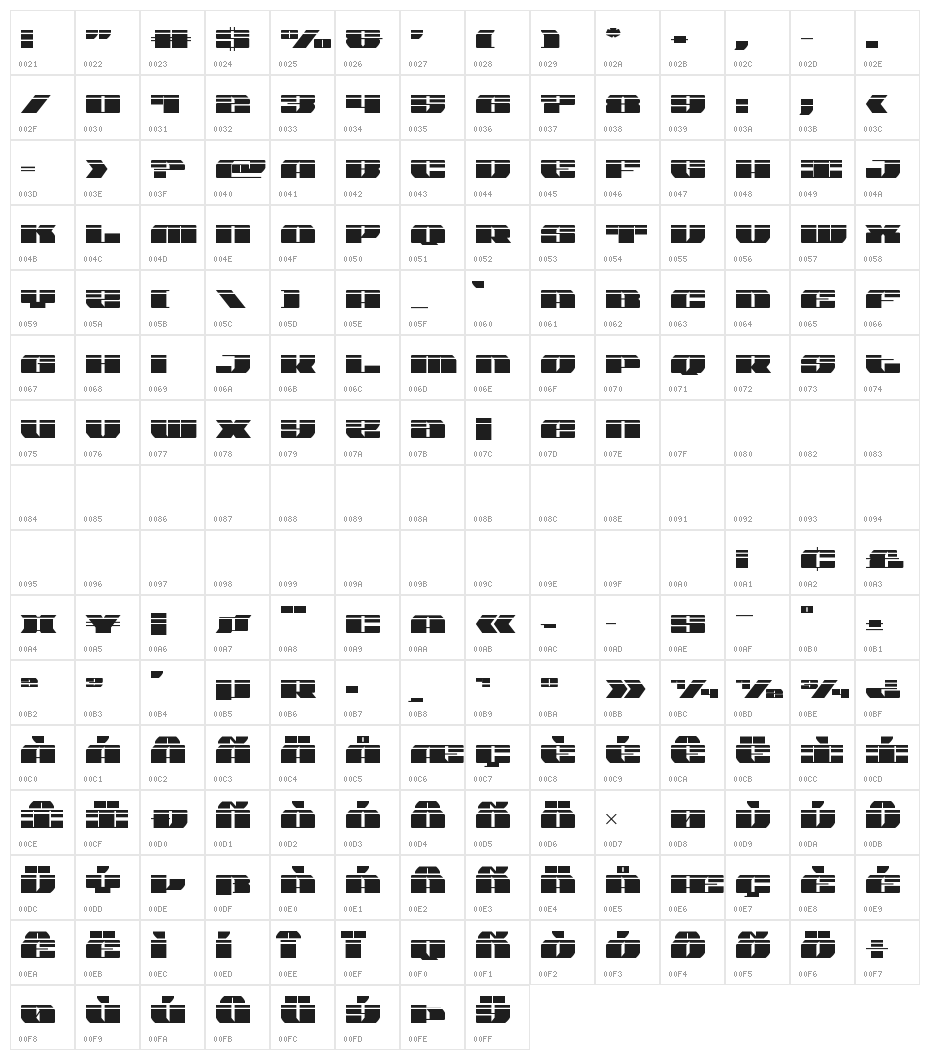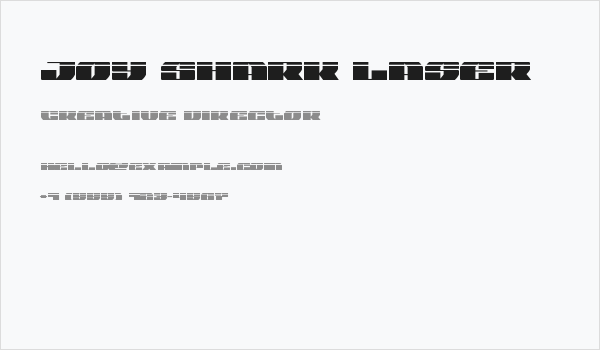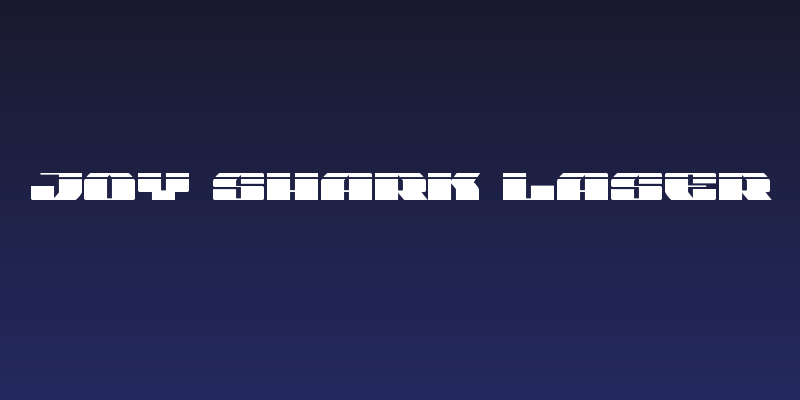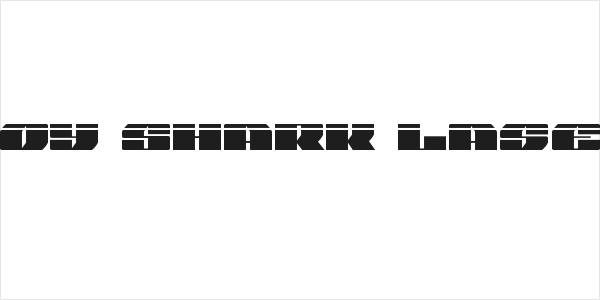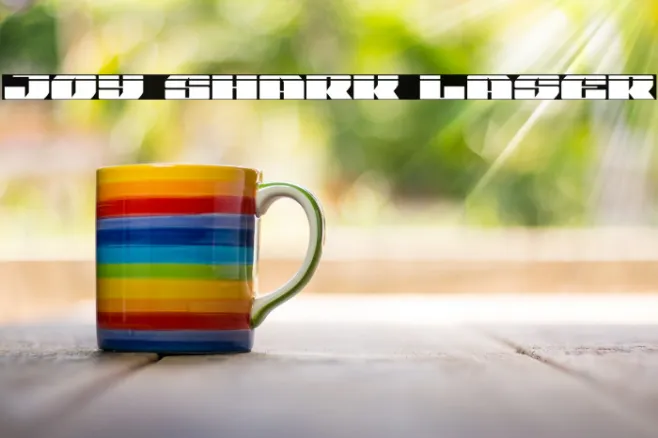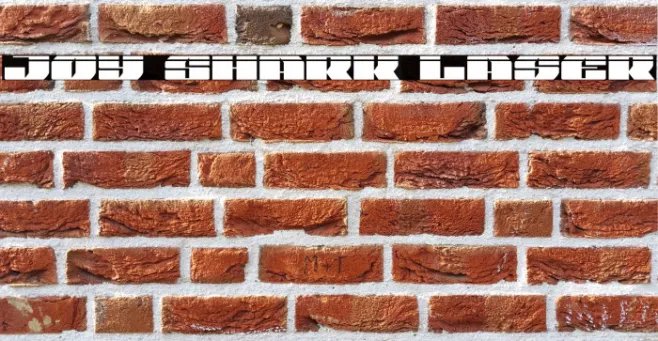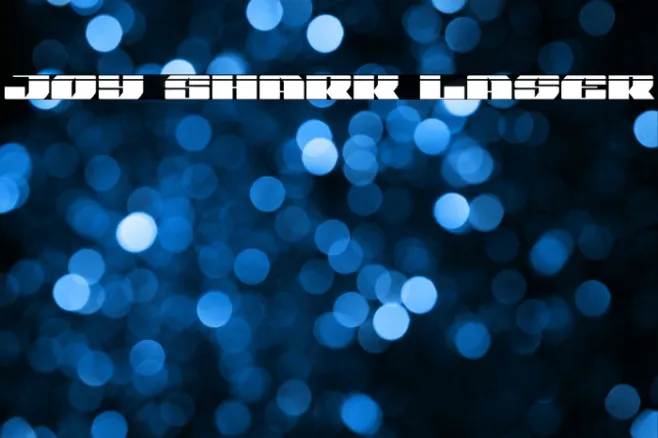
Joy Shark Laser Font
Joy Shark Laser Description
This font features a bold, geometric design with sharp angles and a futuristic aesthetic. The characters are constructed with thick, block-like strokes that create a sense of strength and modernity. The uppercase and lowercase letters maintain a consistent style, with the lowercase slightly smaller but equally bold. The numbers and special characters follow the same design principles, ensuring uniformity across all glyphs. The font's unique style is reminiscent of digital or sci-fi themes, making it stand out in any design project.
JOY-SHARK-LASER UPPERCASE
JOY-SHARK-LASER LOWERCASE
JOY-SHARK-LASER OTHER CHARS
| Overall Style | Futuristic, Digital |
| Proposed Projects | Ideal for sci-fi movie posters, video game titles, tech branding, and futuristic-themed designs. |